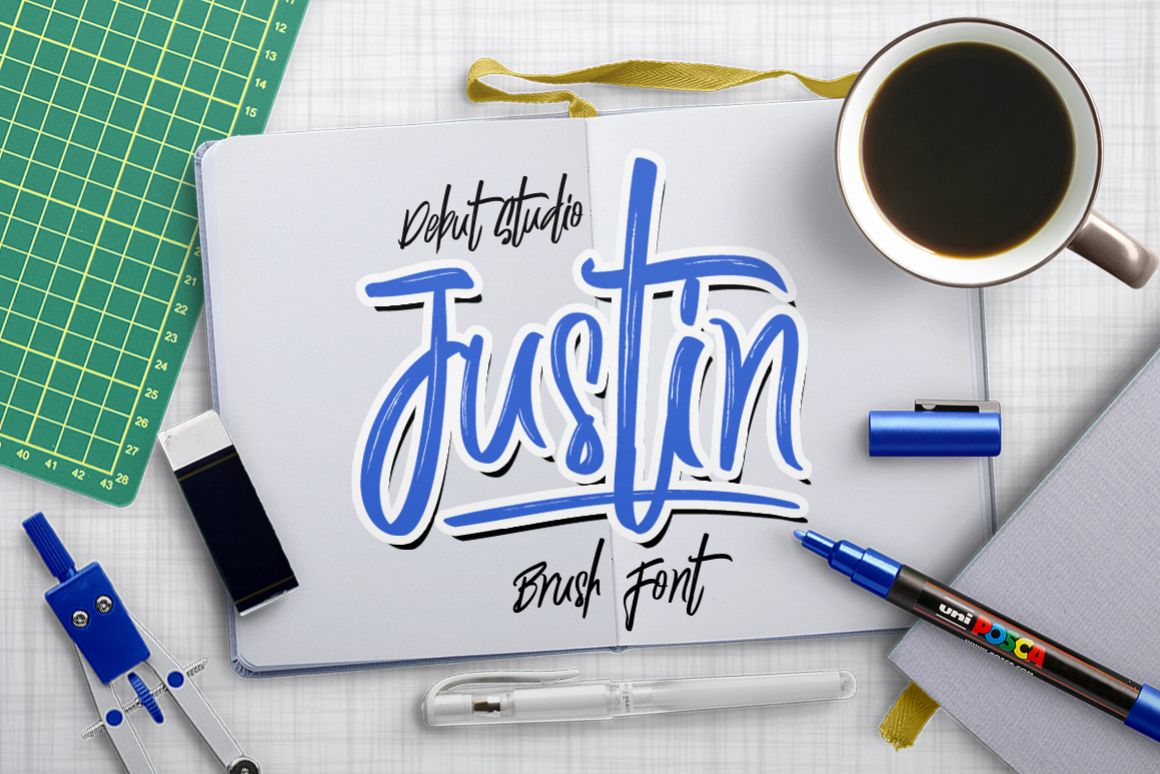
Justin Brush Font
Justin
Justin Italic
Justin Swash
Introducing my new Calligraphy, Justin Brush Font
This font is my own handmade, I made it using a brush pen, so the fibers of the writing look more beautiful. this handwriting I make into a font for those of you who like free style in designing. It is suitable for those of you who like free style fonts for design purposes such as T-shirts, branding, lettering, brochures, and other design purposes.
- Regular & Italic
- Stylistic Alternates
- Standard Ligature